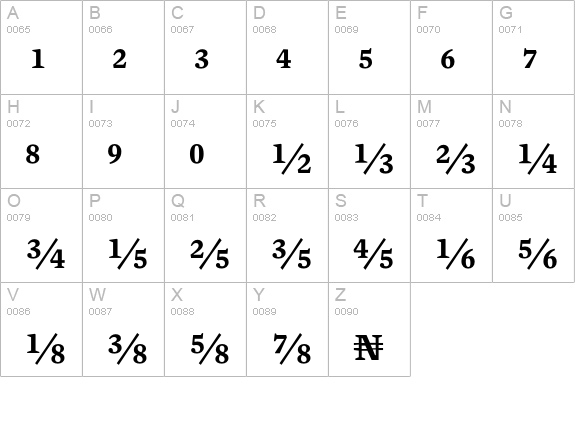
Mercury Numeric G3 Semibold is a sub-bold, structured variant in the Mercury typeface family \xE2\x80\x94 well suited to sub-headlines and emphasised passages.
Mercury Numeric G3 Semibold font is a sophisticated and modern typeface that exudes elegance and authority. With its clean lines and balanced proportions, this font is perfect for adding a touch of professionalism to any design project. The semibold weight provides a strong and impactful presence, making it ideal for headlines, logos, and other attention-grabbing elements. What sets Mercury Numeric G3 Semibold font apart is that it is not only stylish and versatile but also free to use. That's right - you can download this high-quality font at no cost from FontsMarket.com. Whether you're a designer looking to enhance your work or a business owner seeking a polished look for your brand, Mercury Numeric G3 Semibold font is a fantastic choice that won't break the bank. Don't miss out on this opportunity to elevate your designs with a premium font that won't cost you a dime.